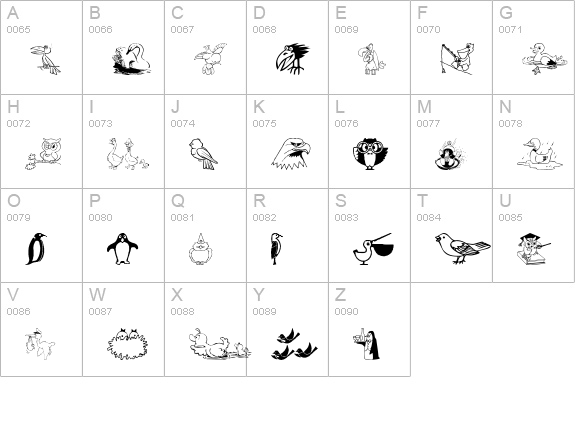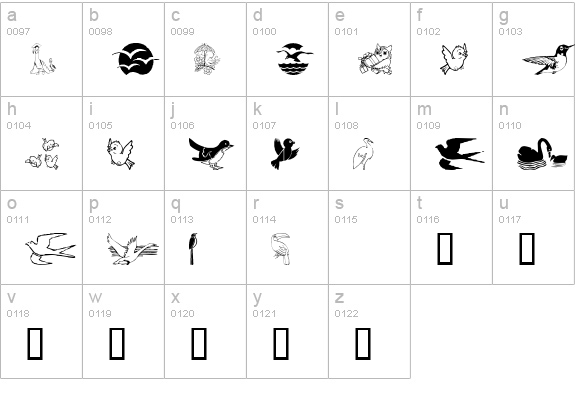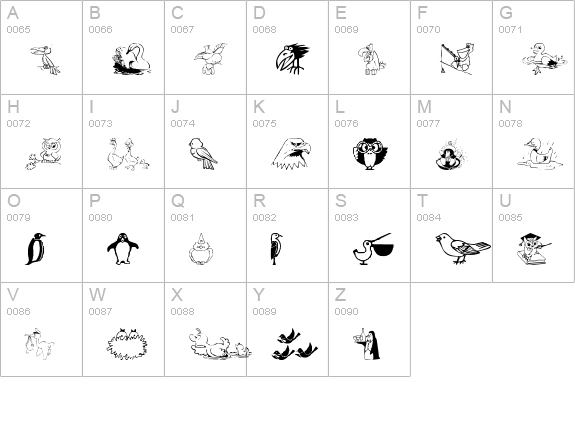
BirdArt Font Details
Introducing BirdArt font, a whimsical and charming typeface inspired by the beauty of birds and nature. This unique font features delicate lines and graceful curves that evoke a sense of elegance and creativity. BirdArt font is perfect for adding a touch of enchantment to your designs, whether for branding, invitations, or artistic projects. What makes BirdArt font even more special is that it is completely free to download at FontsMarket.com. This means you can easily access this beautiful typeface and incorporate it into your work without any cost. Don't miss out on the opportunity to enhance your designs with the enchanting BirdArt font - download it now and let your creativity take flight!